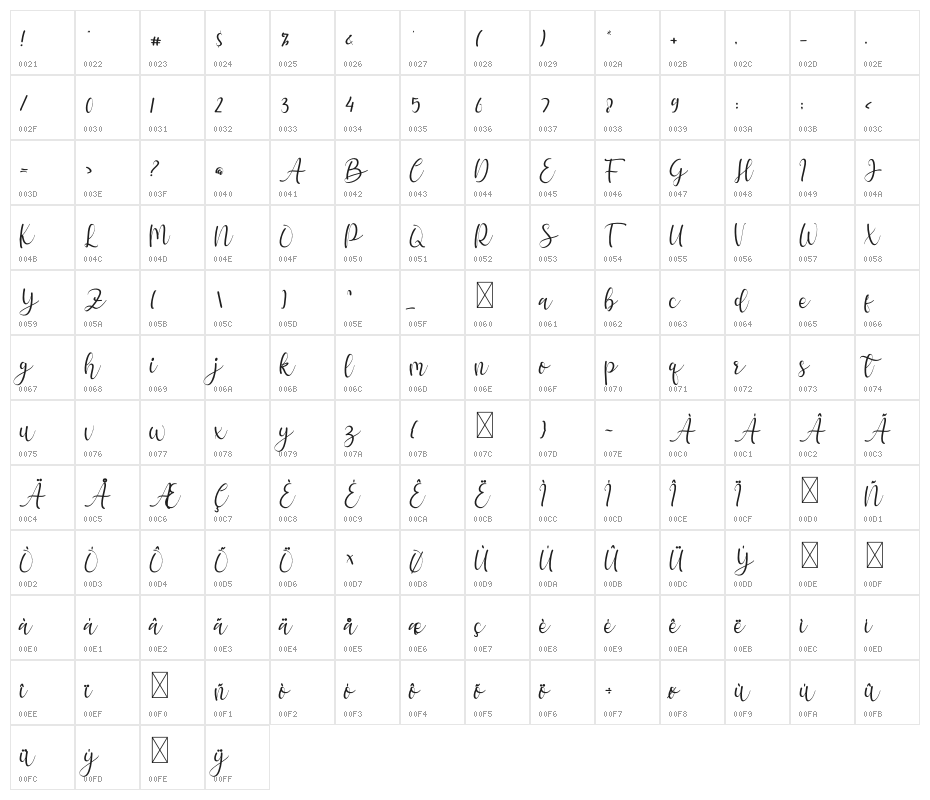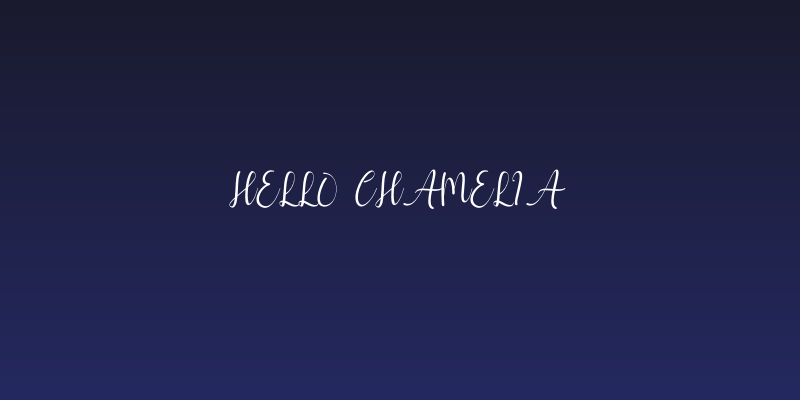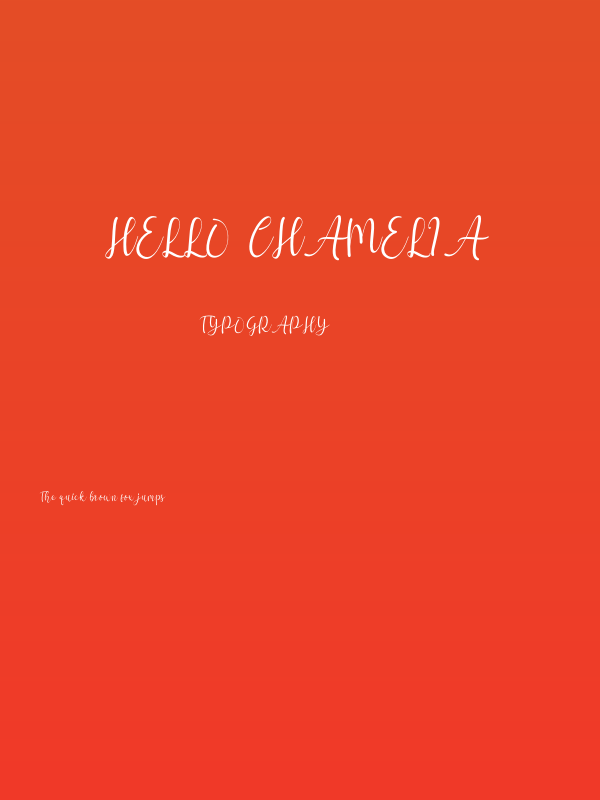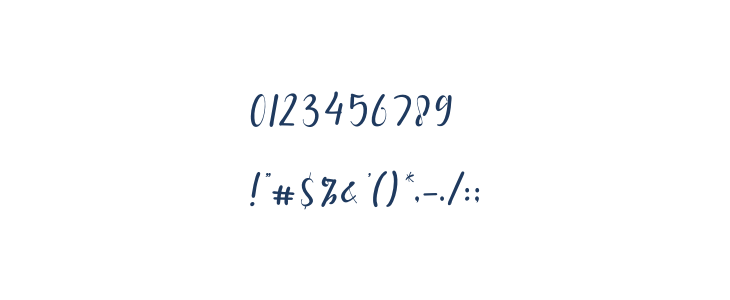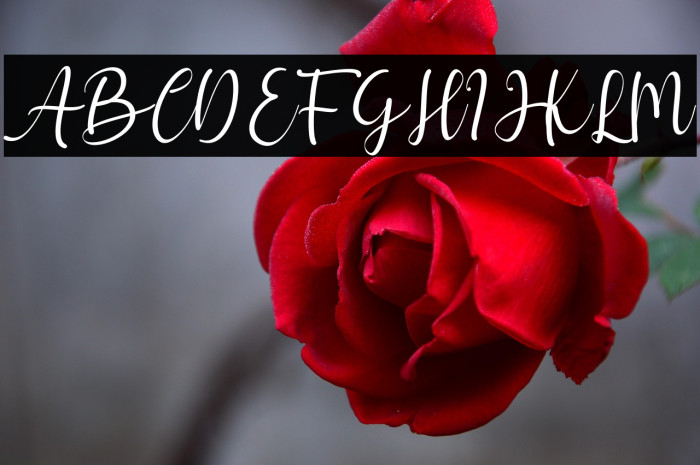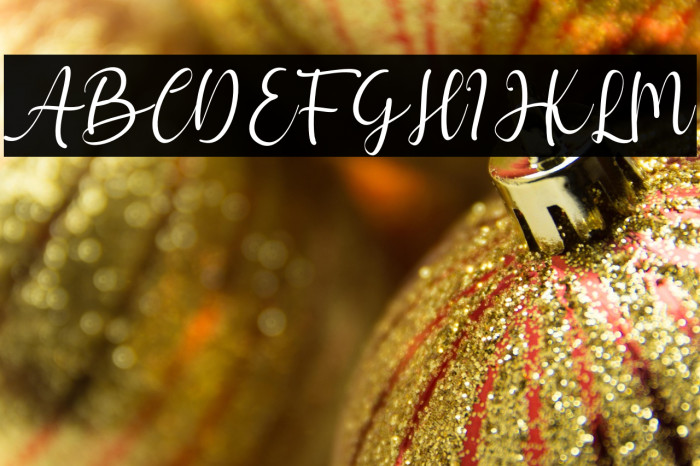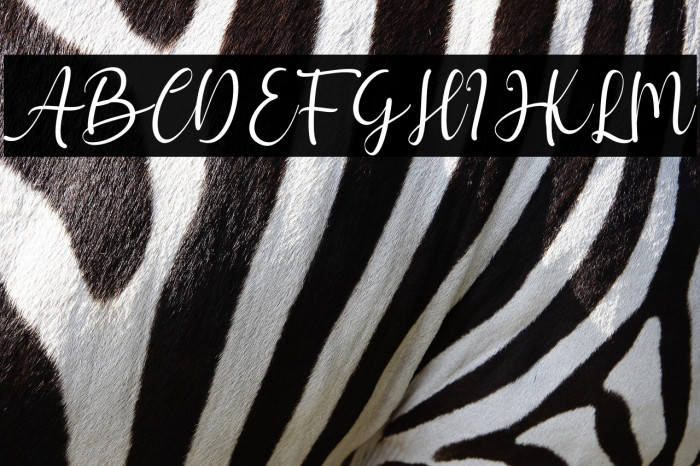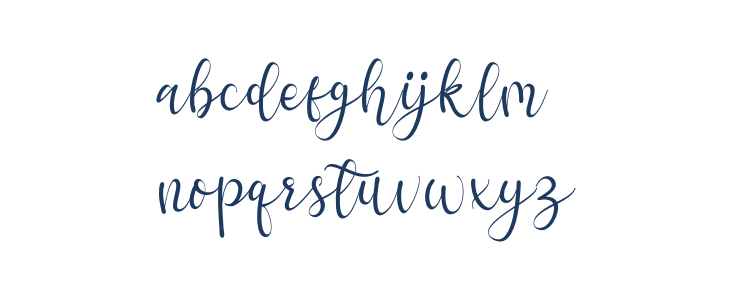
hello chamelia Font
hello chamelia Description
This font features a flowing, cursive style with elegant, sweeping lines that give it a sophisticated and artistic appearance. The uppercase letters are characterized by their tall, graceful loops and swirls, while the lowercase letters maintain a consistent fluidity, enhancing the font's overall harmony. The numerals are designed to match the script's aesthetic, with smooth curves and a slightly whimsical touch. Special characters are thoughtfully integrated, maintaining the font's cohesive look. This font is ideal for projects that require a touch of elegance and creativity.
| Overall Style | Elegant, Artistic |
| Use Case | Headlines, Invitations, Logos |